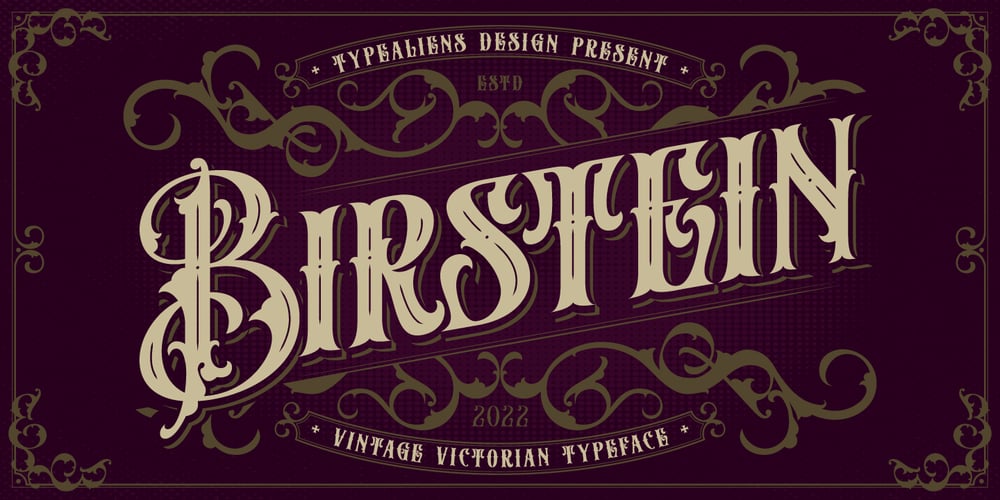
Birstein Font Family was designed by Ilham Wahyu and published by Ilhamtaro. Birstein contains 1 styles and family package options. BIRSTEIN is a vintage decorative font, Victorian style. Perfect for vintage designs, vintage branding, liquor labels/brands.To enable the OpenType Stylistic alternates, you need a program that supports OpenType features such as Adobe Illustrator CS, Adobe Indesign & CorelDraw X6-X7.Cheers!